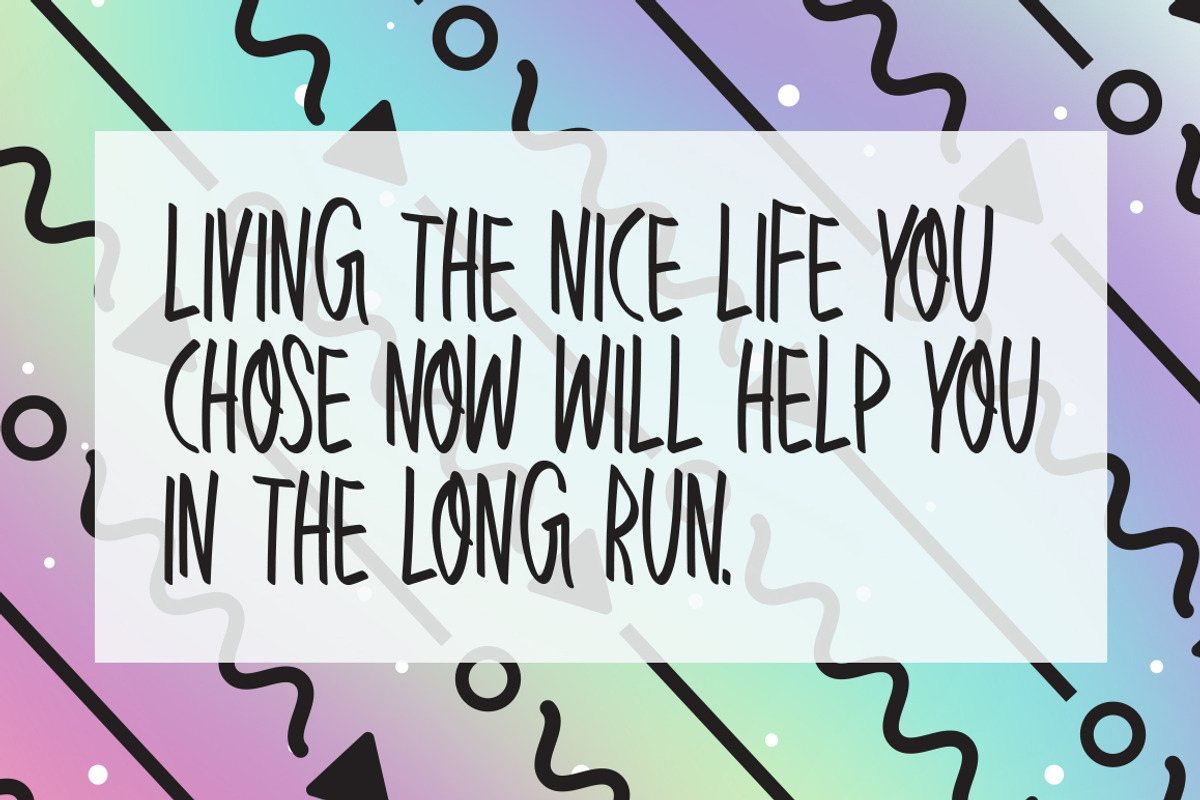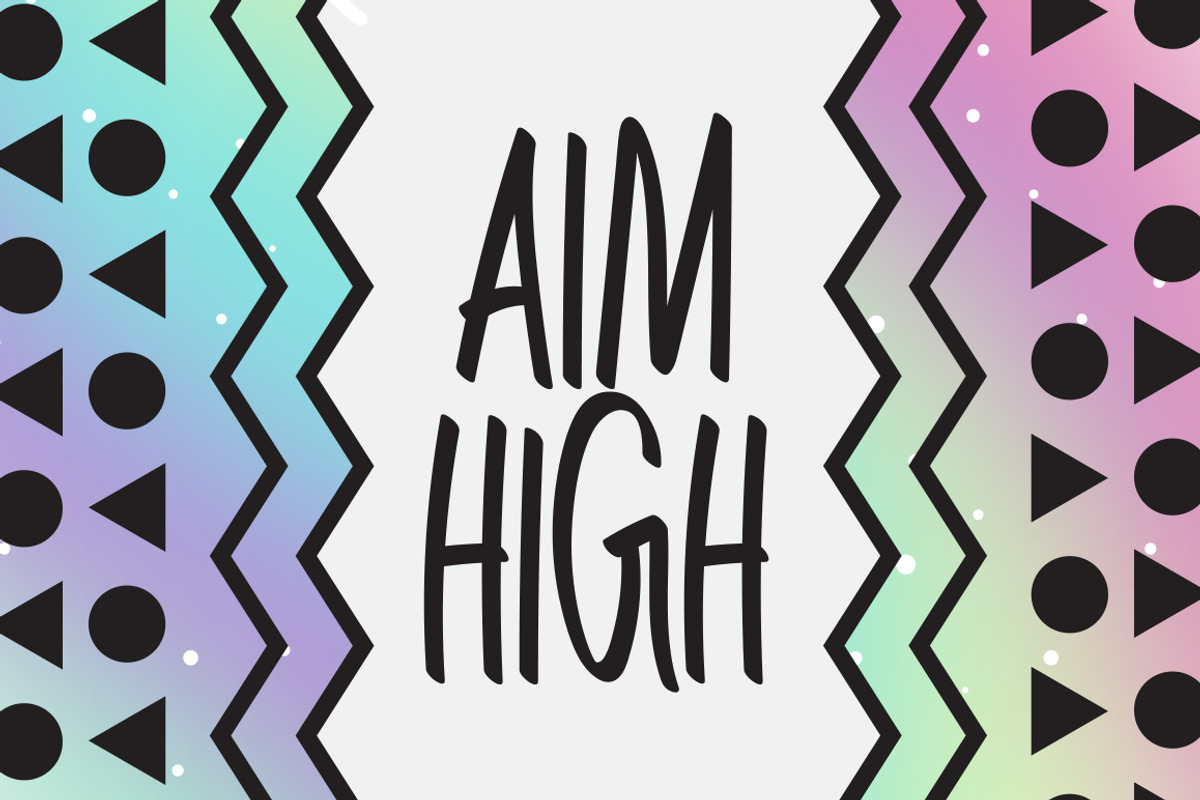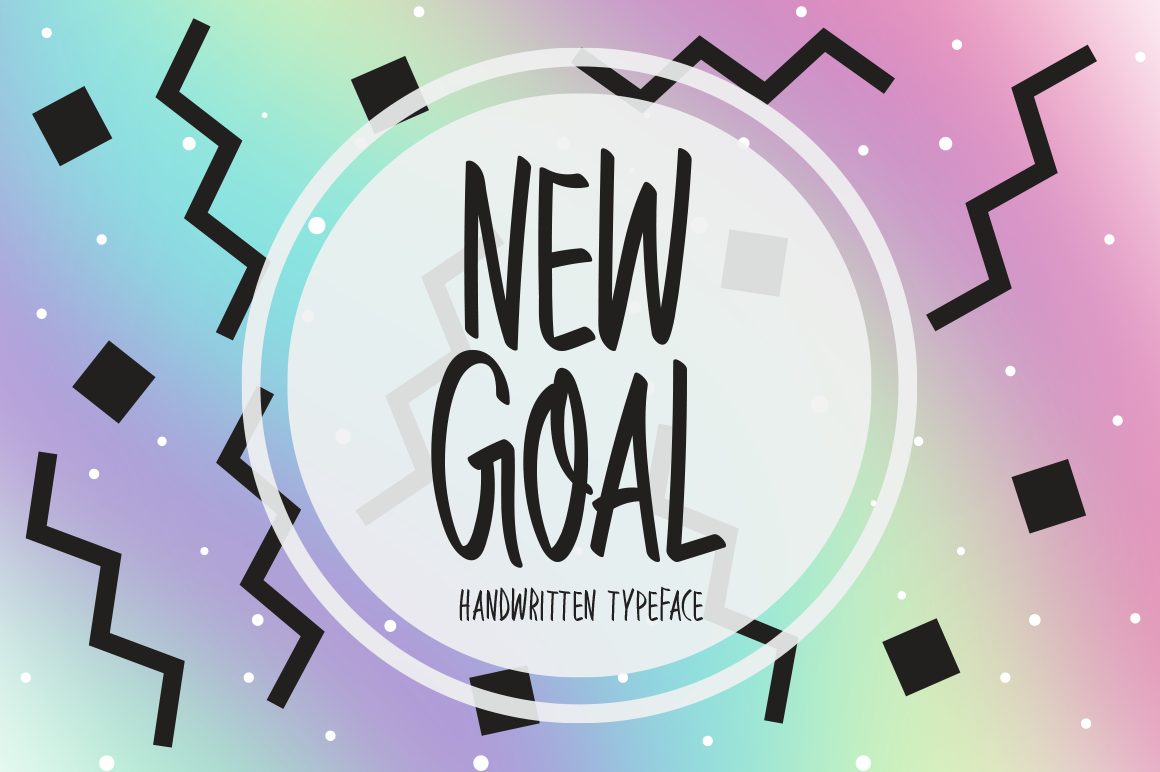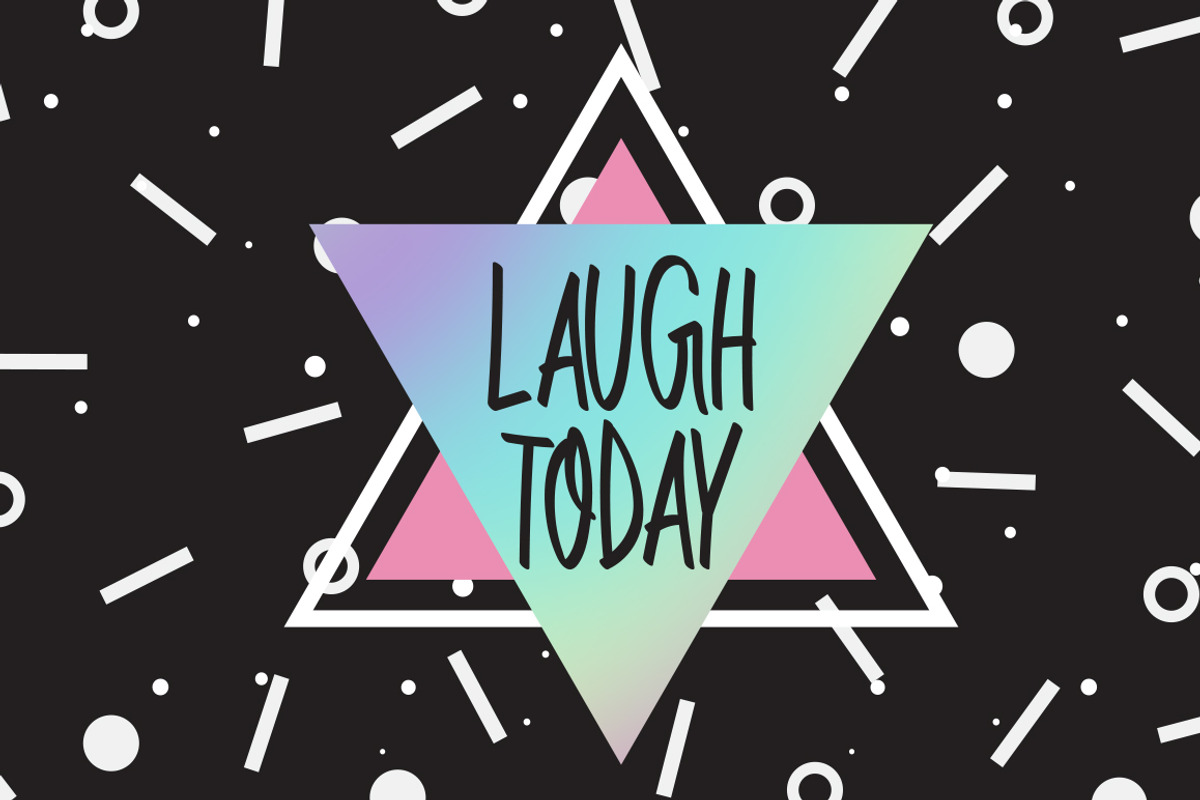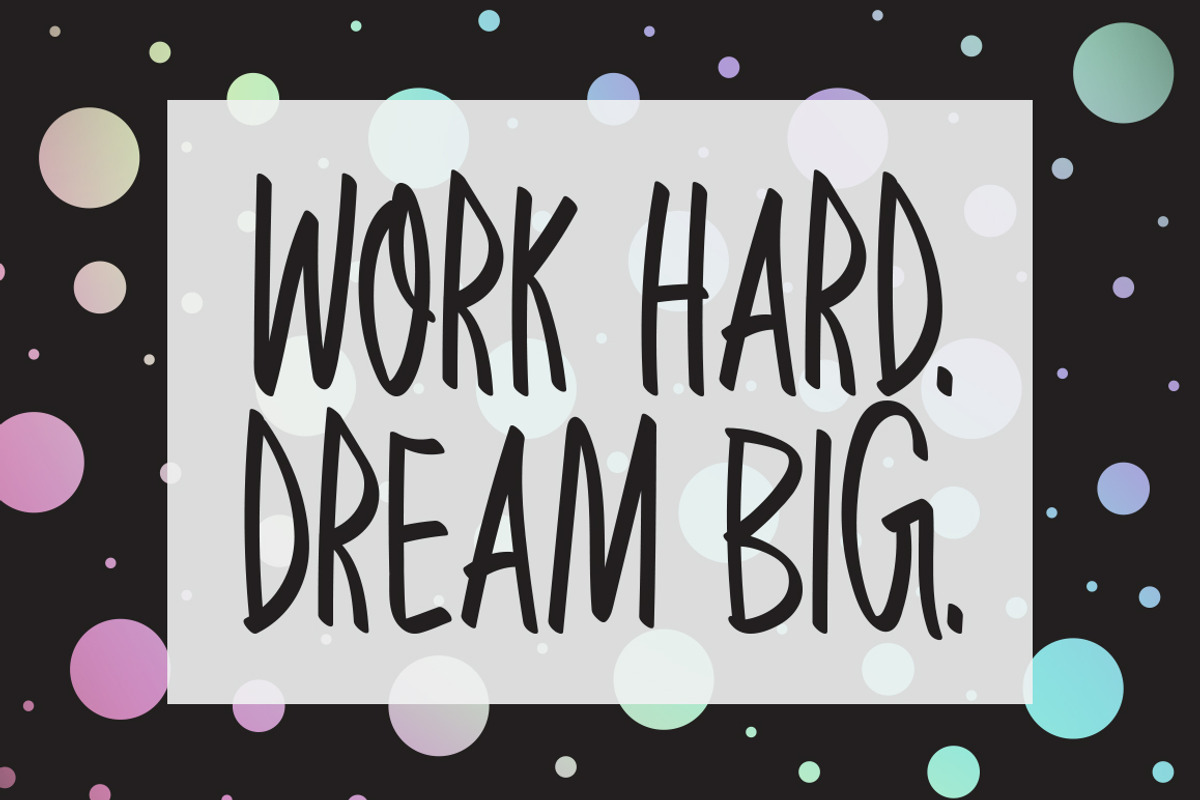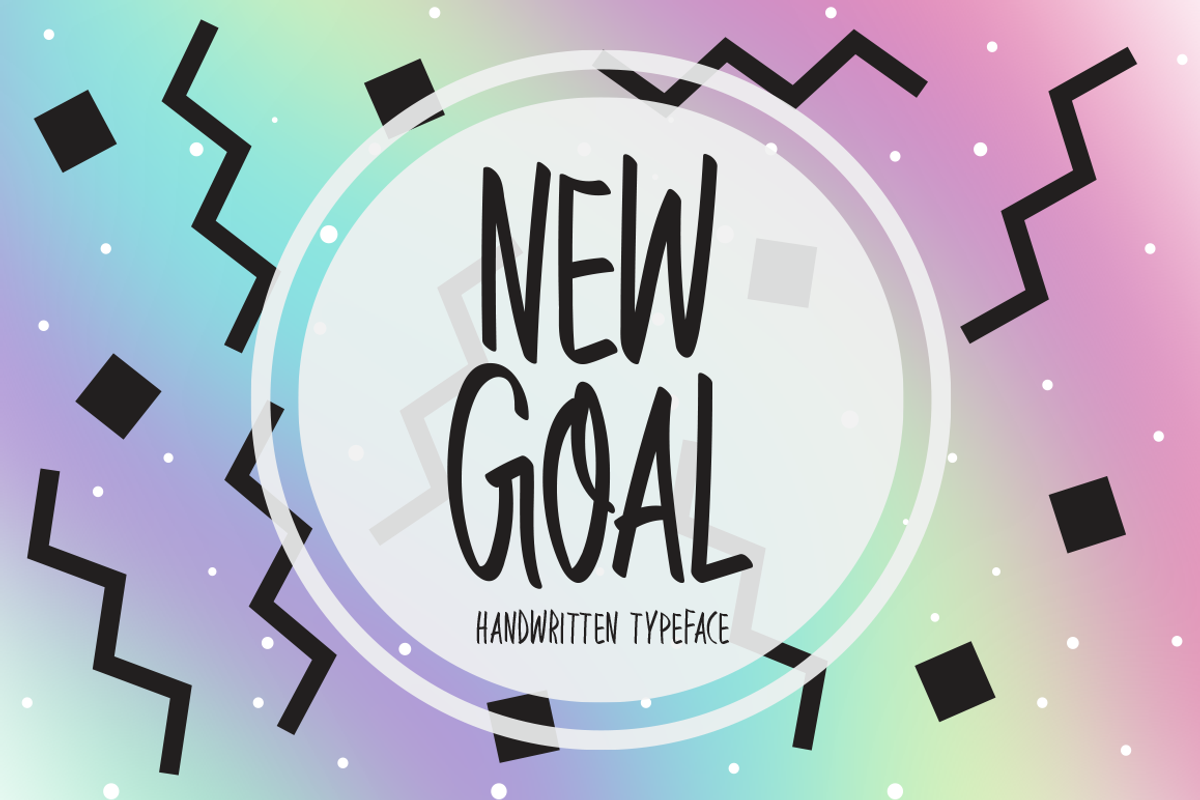
New Goal Typeface
Introducing New Goal!
New Goal is a incomparable handwritten font. It can easily be matched to an incredibly large set of projects, so add it to your creative ideas and notice how it makes them stand out!